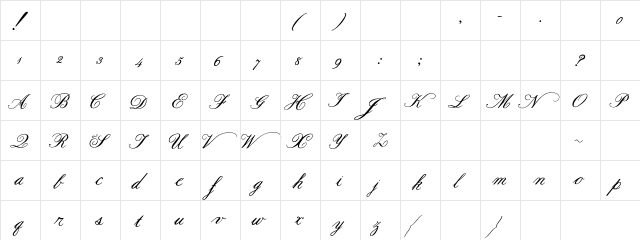
Formal Script Bold
Design Context for Formal Script Typeface
Formal Script flows with the natural rhythm of handwritten lettering, making it ideal for designs that call for warmth and personal expression. Its bold stroke weight gives it real presence on the page.
Font Pairing: Combine Formal Script with a simple geometric sans for maximum contrast — the tension between flowing curves and clean structure is a classic typographic pairing.
Pro Tip: Use Formal Script for short runs of text — names, titles, or taglines. Extended body copy in script faces tires the eye quickly.